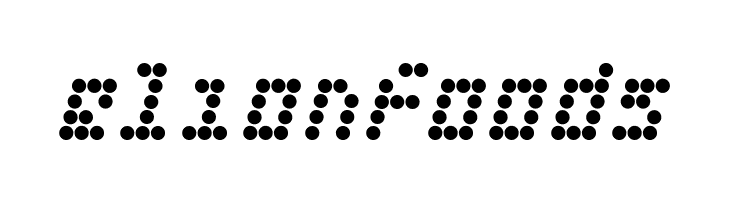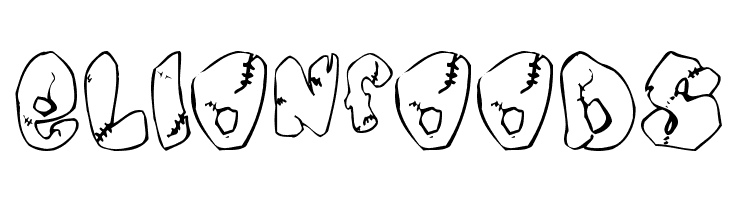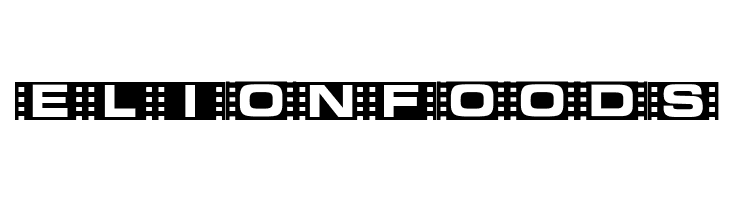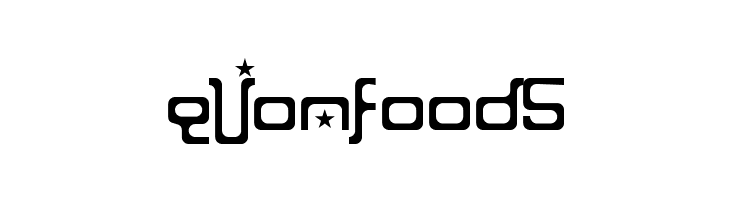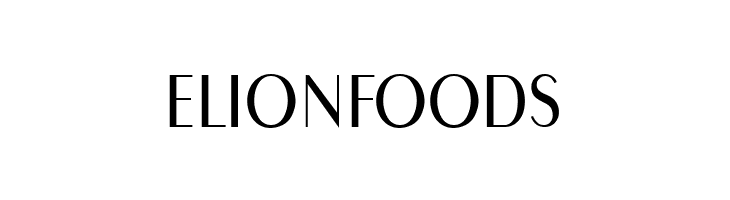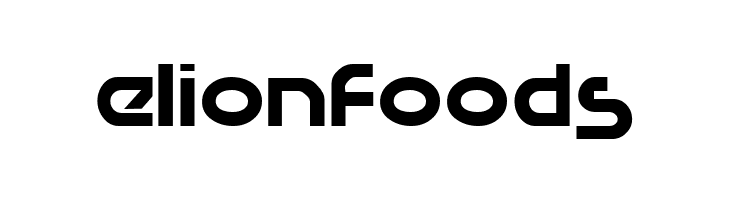
A slanted dot matrix font with a modern, digital aesthetic.
A playful, spooky font with a stitched, hand-drawn aesthetic.
A bold, cinematic font with a vintage film reel aesthetic.
A bold, futuristic font with geometric shapes and star embellishments.
A bold, geometric font with an Art Deco influence, featuring a double-line effect.
A modern, geometric font with bold, angular shapes and a futuristic aesthetic.